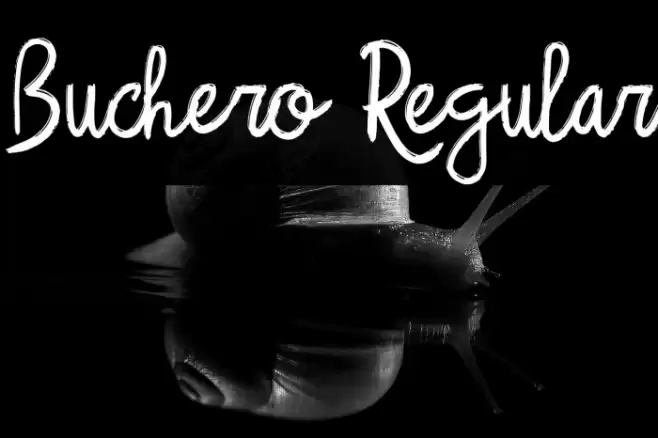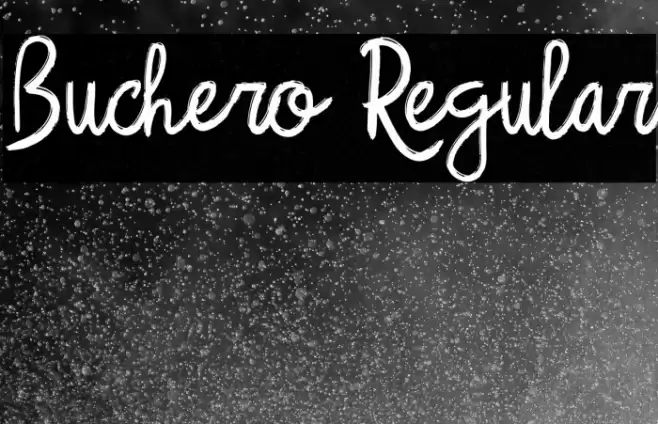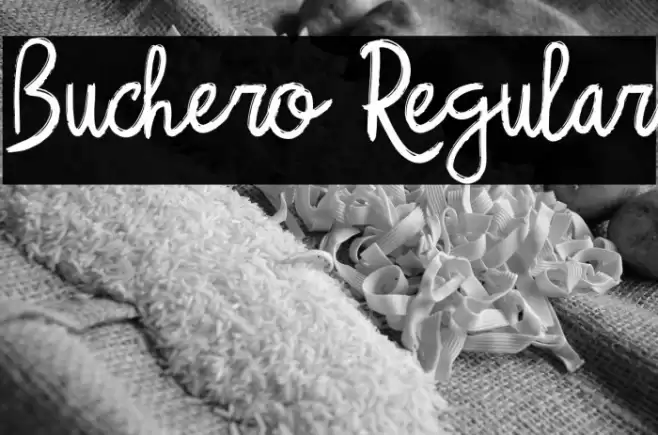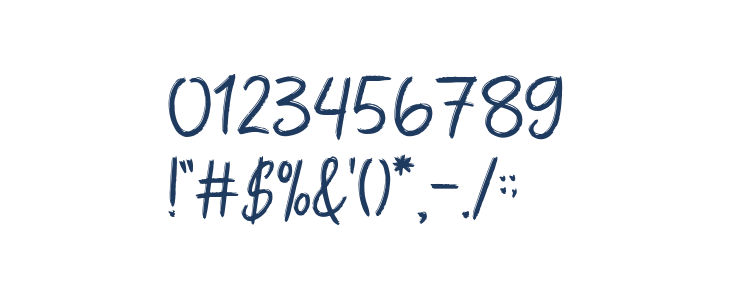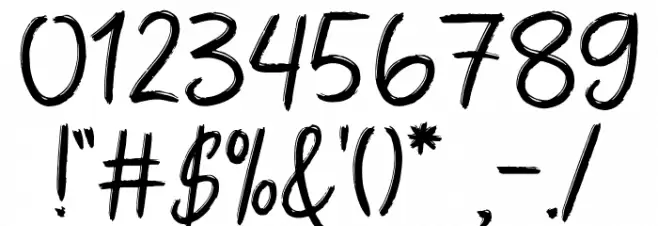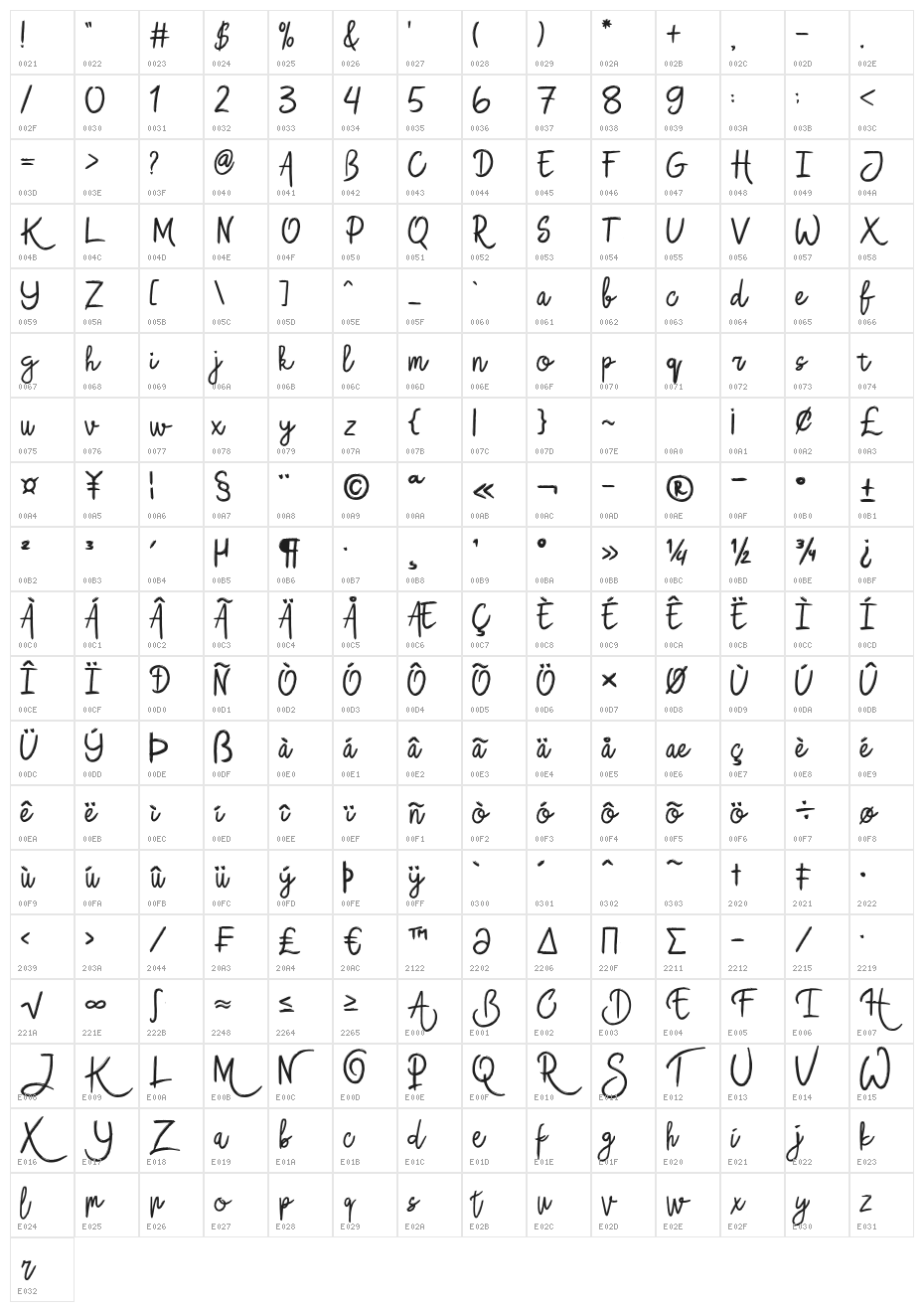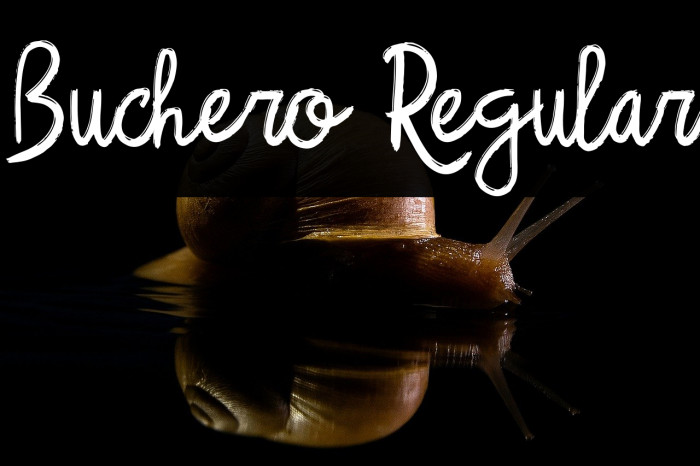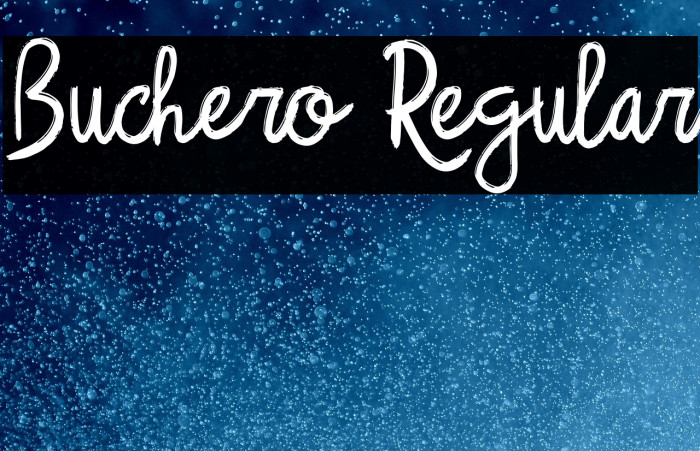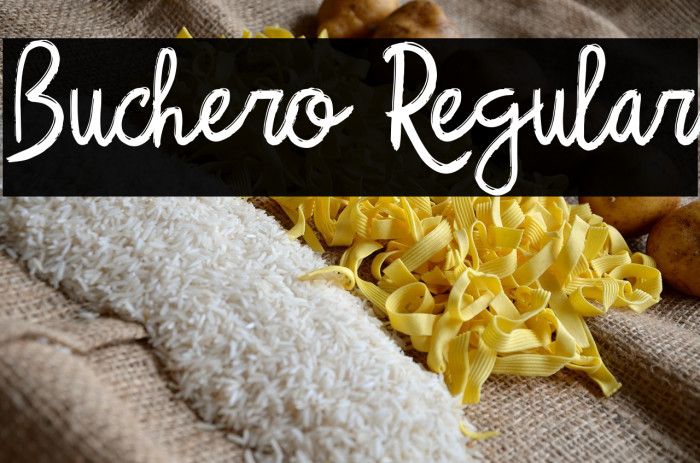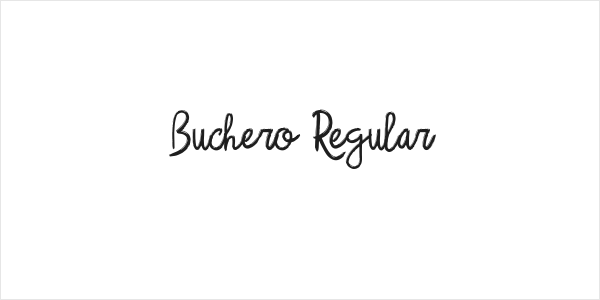
Buchero Regular Font
Buchero Regular Description
This font features a dynamic and energetic handwritten style, characterized by its fluid and slightly irregular strokes. The letters exhibit a playful and informal appearance, with varying stroke widths that add a sense of movement and personality. The uppercase and lowercase letters maintain a consistent style, while the numerals and special characters complement the overall aesthetic. The font's design is reminiscent of casual handwriting, making it approachable and friendly.
A lively handwritten font with fluid, playful strokes from Uncategorized fonts.
- Proposed Projects: Ideal for greeting cards, personal branding, social media graphics, and informal invitations.
- Overall Style: Casual
- Use Case: Logos, Headlines, Informal Text